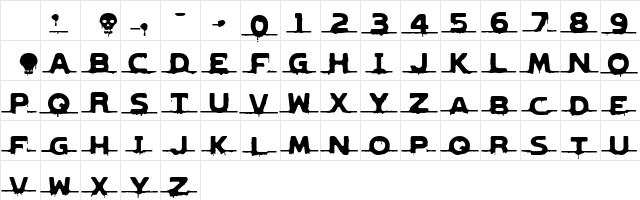
LVDC GNCD RMX2 Regular
Design Context for LVDC GNCD RMX2
LVDC GNCD RMX2 is a composed and adaptable typeface that performs quietly and consistently across a wide range of design contexts.
Pro Tip: Use LVDC GNCD RMX2 in both headline and body roles to test its range before committing to a single application.